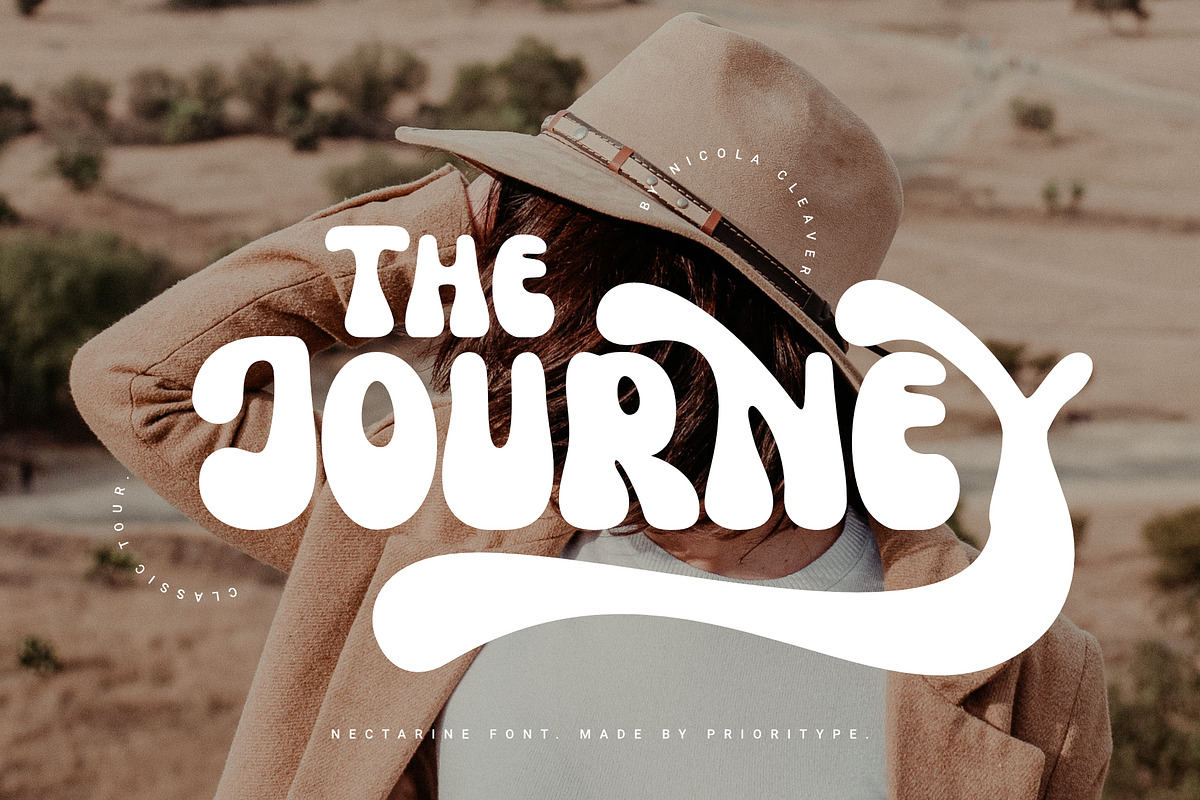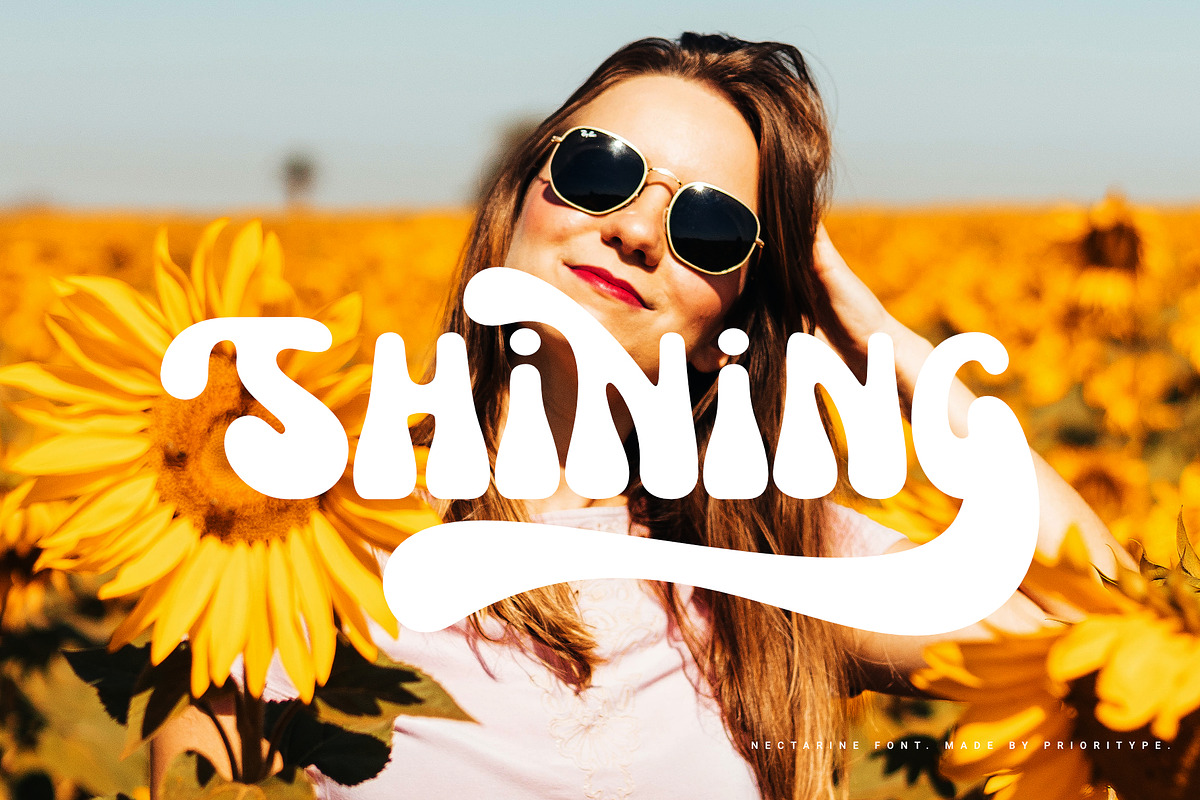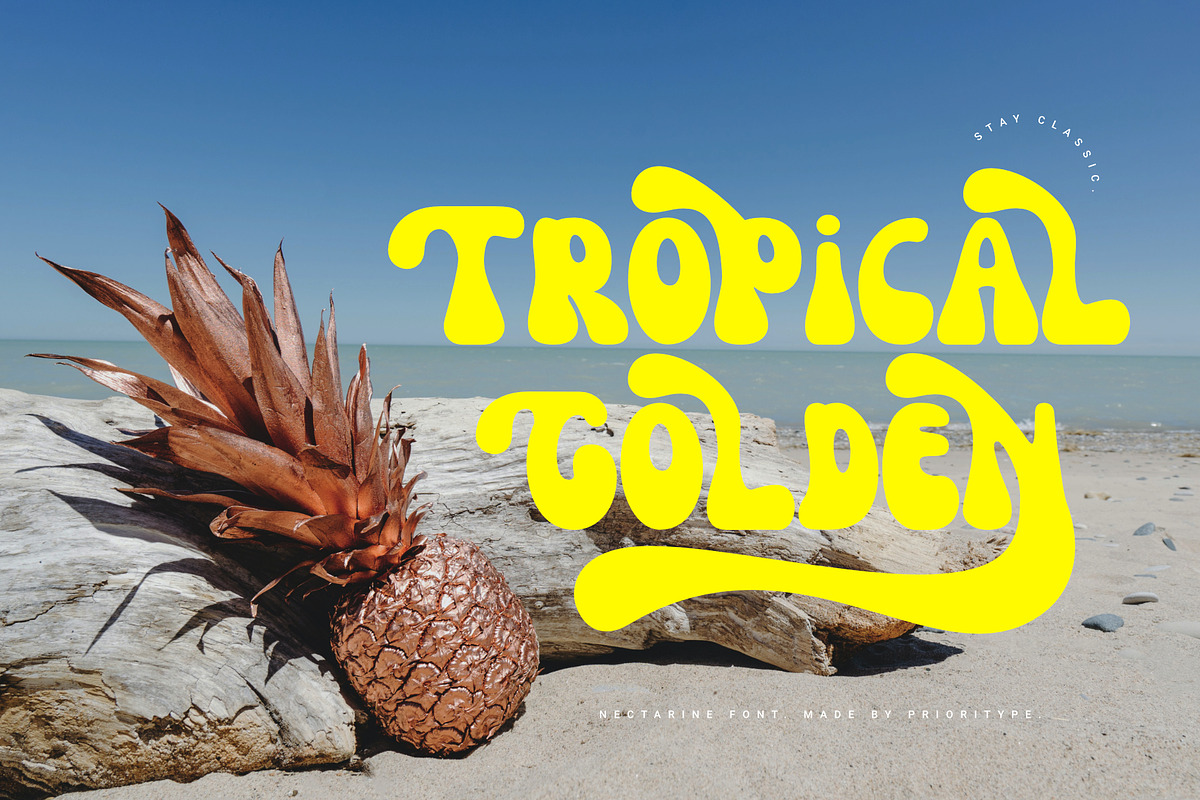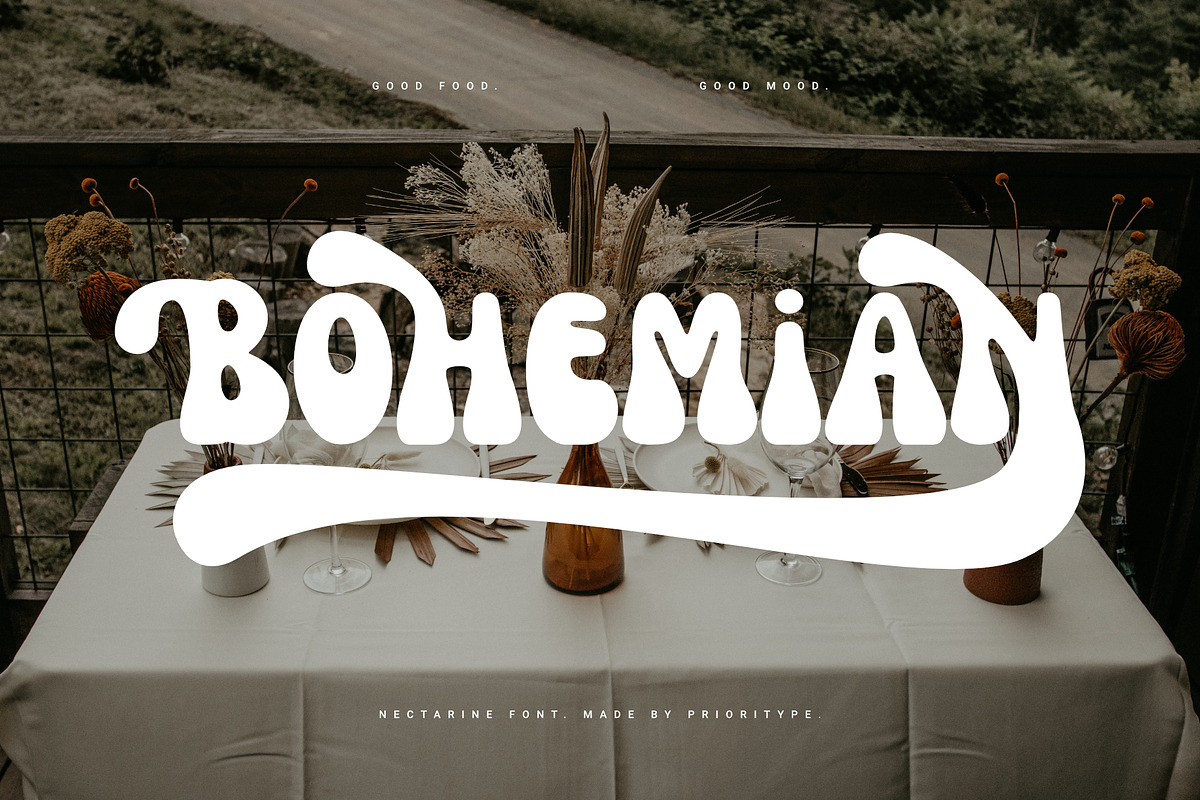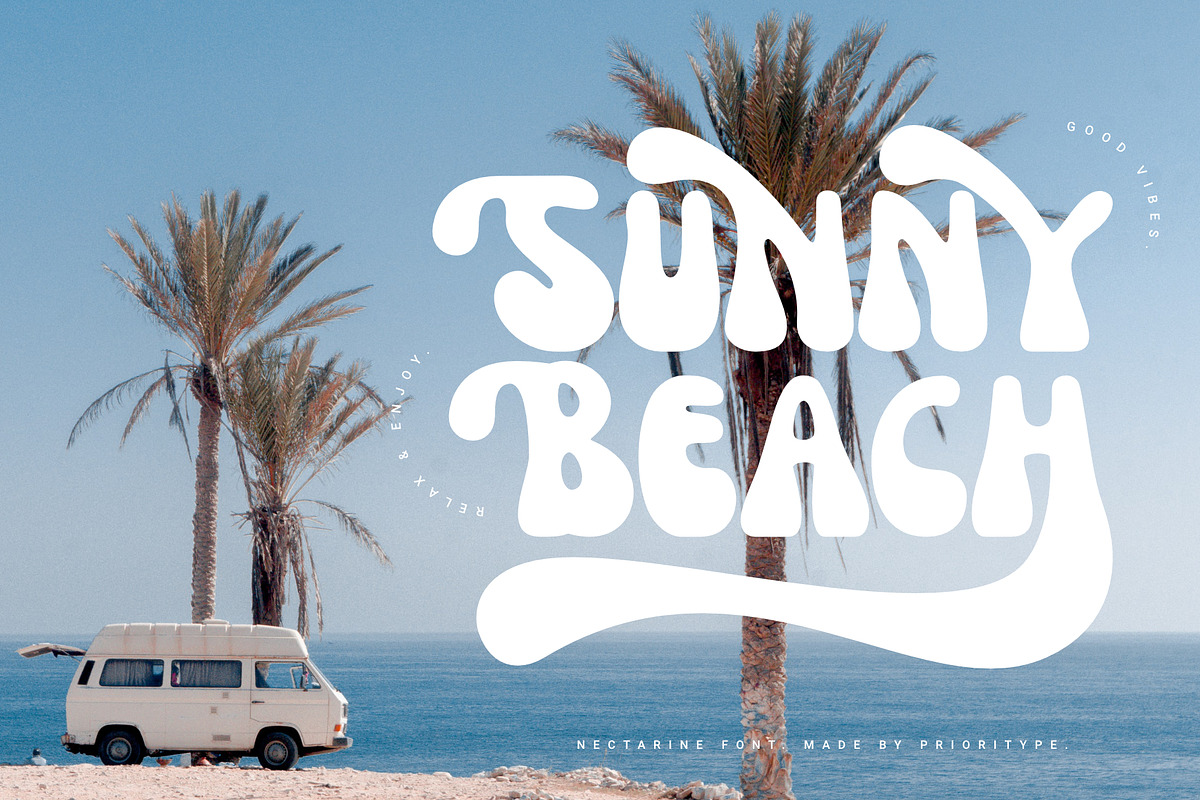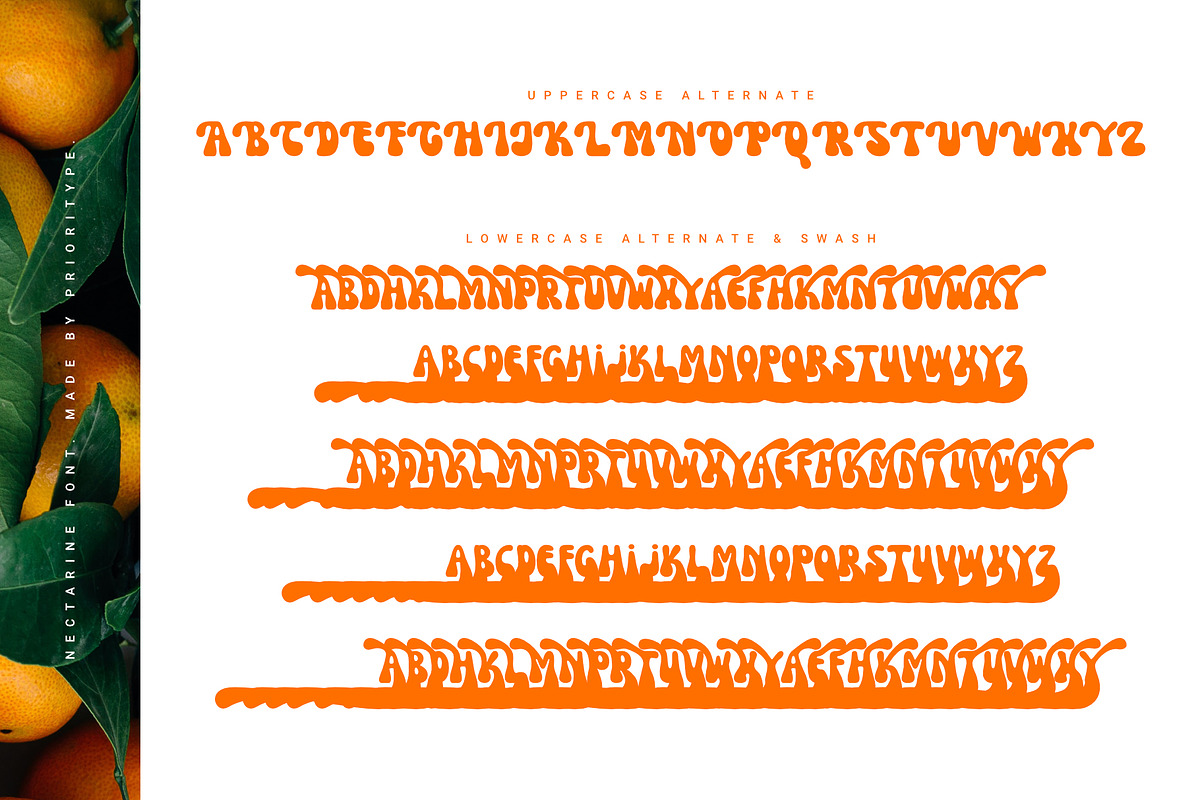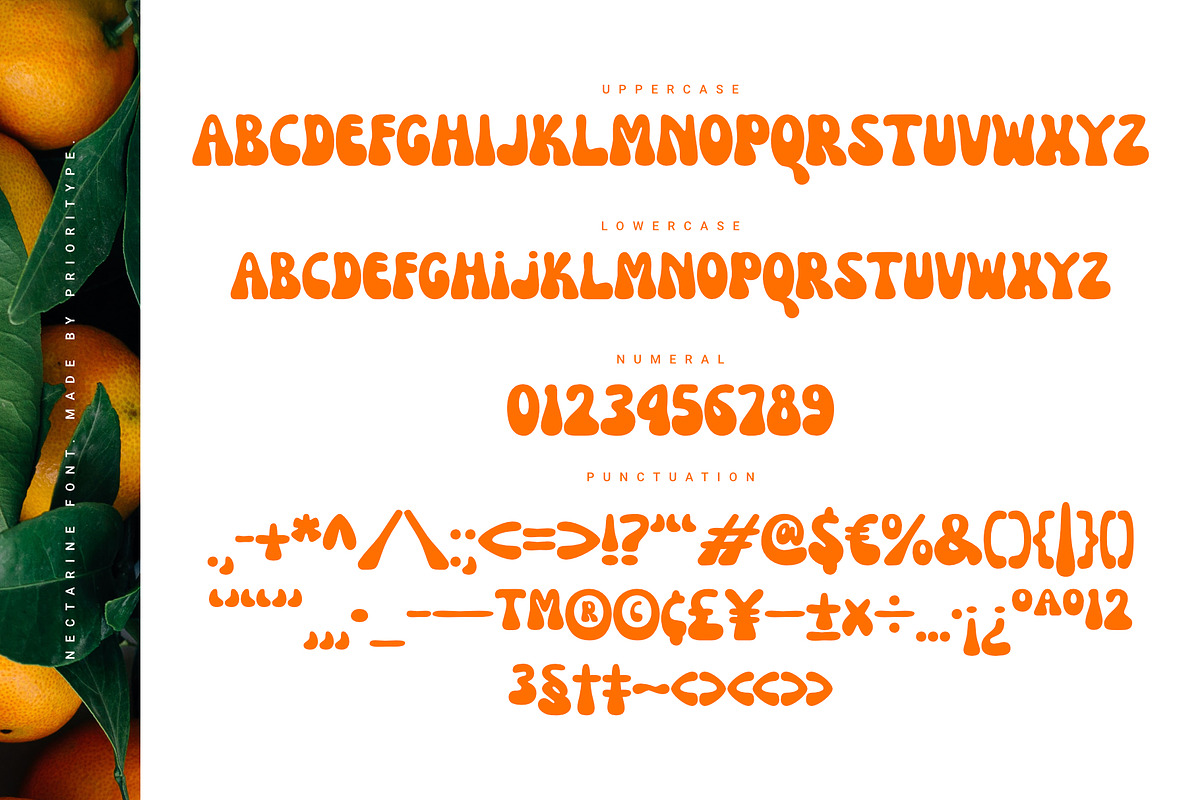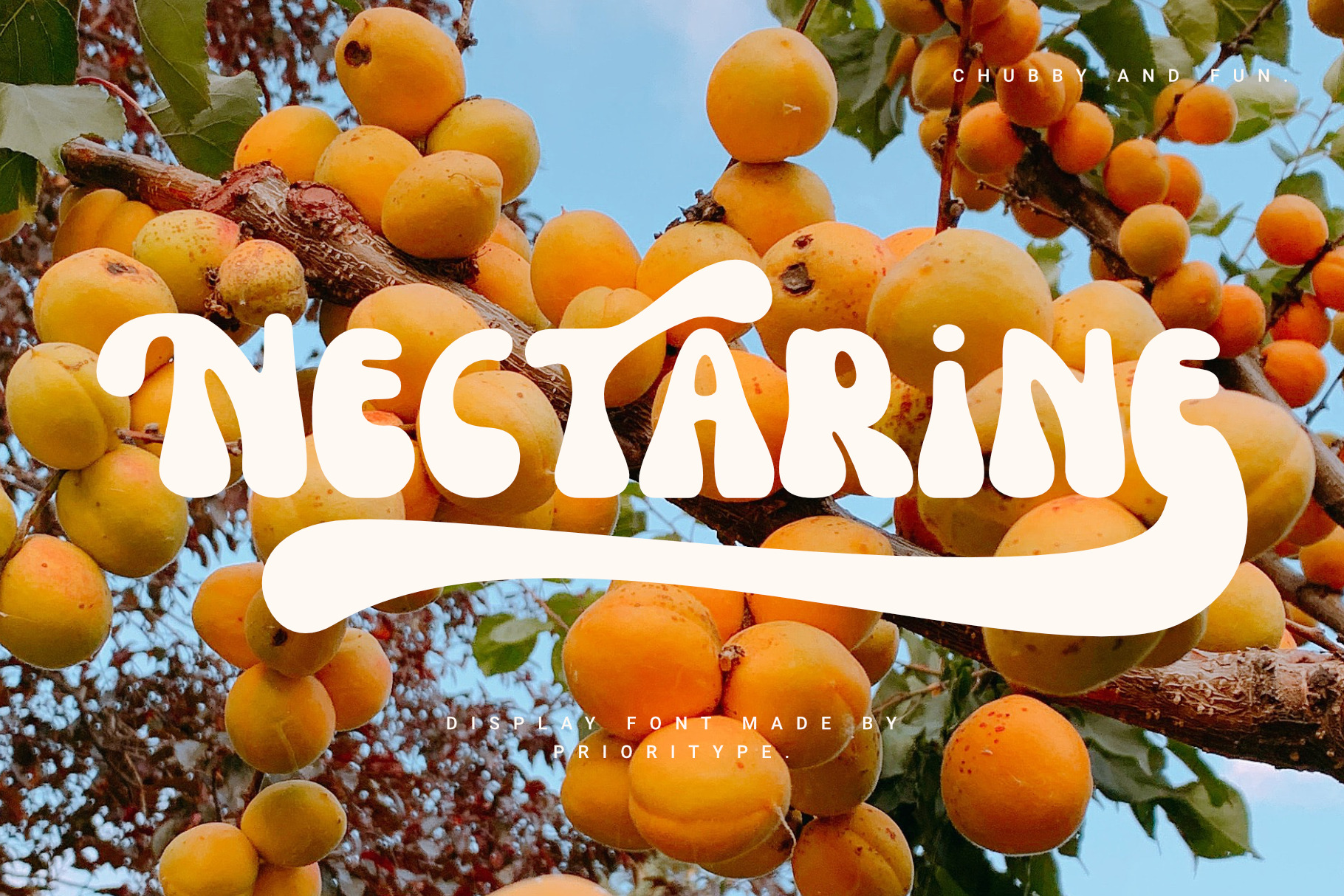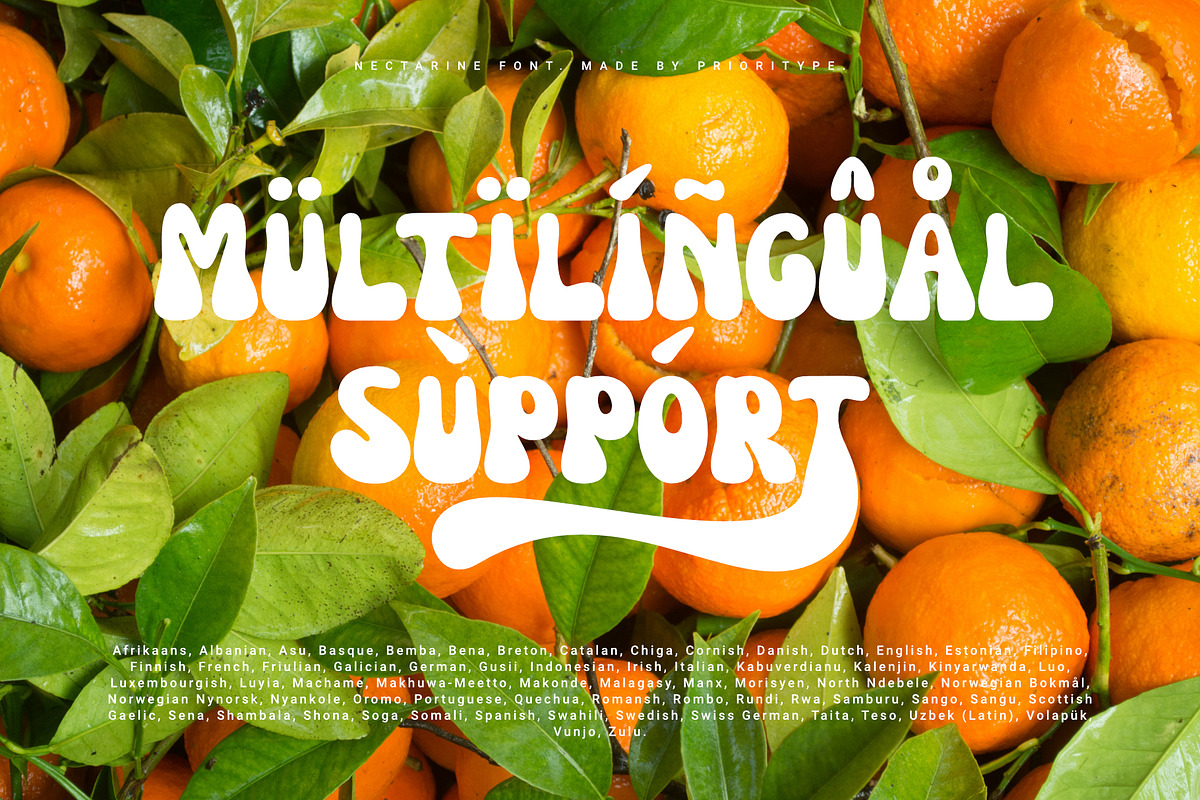
Nectarine - Display Font
Unique display font, looks chubby and fun with a classic and modern feel. Equipped with a lot of alternative characters for you to customize. It is suitable for displaying your designs such as the design of social media posts, magazines, posters, stickers, landing pages and much more.
- Features: Uppercase, Lowercase, Numeral, Punctuation, Multilingual, Alternates, Ligatures, & PUA Encoded.
- Multilingual contained: Afrikaans, Albanian, Asu, Basque, Bemba, Bena, Breton, Catalan, Chiga, Cornish, Danish, Dutch, English, Estonian, Filipino, Finnish, French, Friulian, Galician, German, Gusii, Indonesian, Irish, Italian, Kabuverdianu, Kalenjin, Kinyarwanda, Luo, Luxembourgish, Luyia, Machame, Makhuwa-Meetto, Makonde, Malagasy, Manx, Morisyen, North Ndebele, Norwegian Bokmål, Norwegian Nynorsk, Nyankole, Oromo, Portuguese, Quechua, Romansh, Rombo, Rundi, Rwa, Samburu, Sango, Sangu, Scottish Gaelic, Sena, Shambala, Shona, Soga, Somali, Spanish, Swahili, Swedish, Swiss German, Taita, Teso, Uzbek (Latin), Volapük, Vunjo, Zulu.